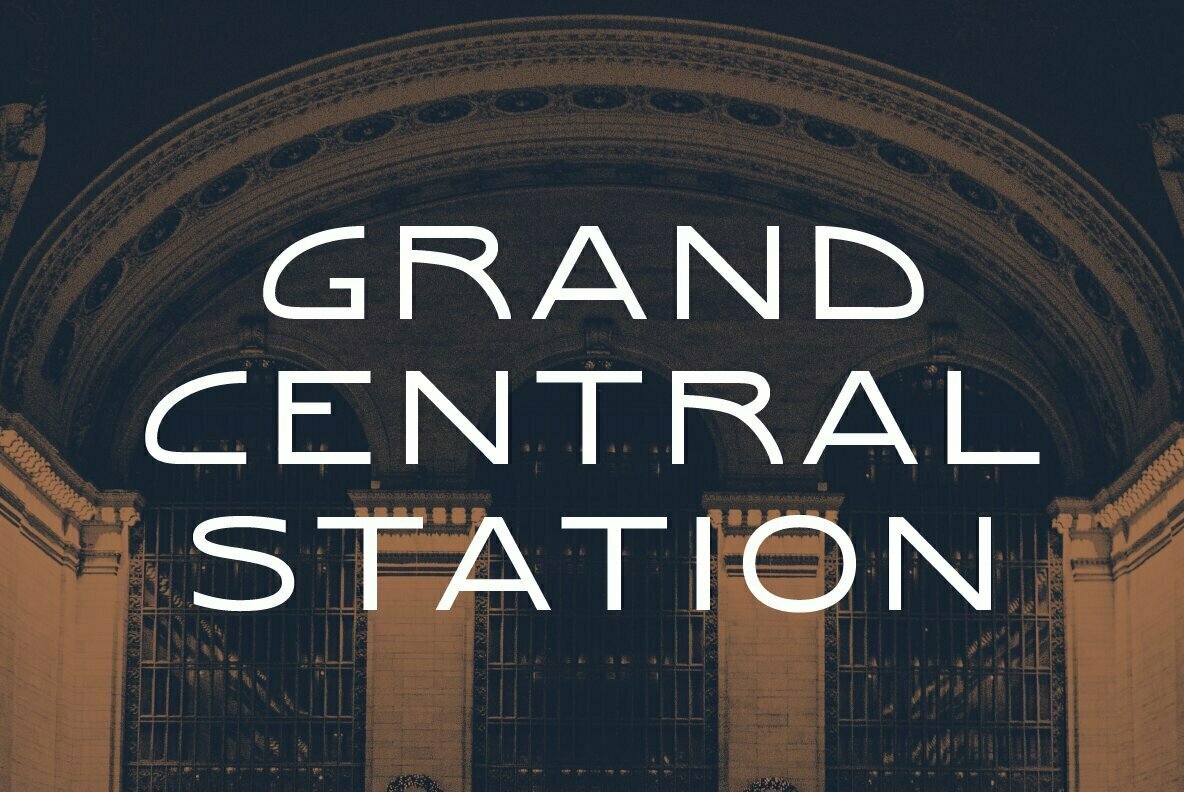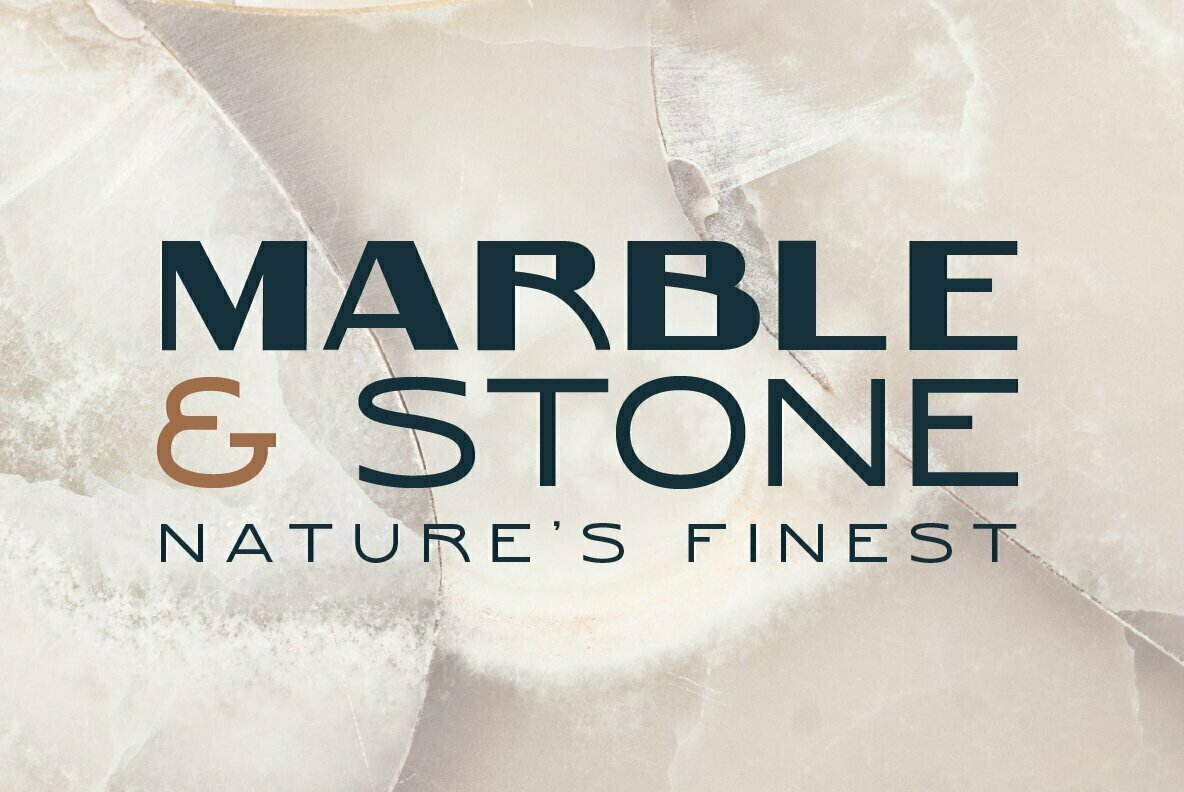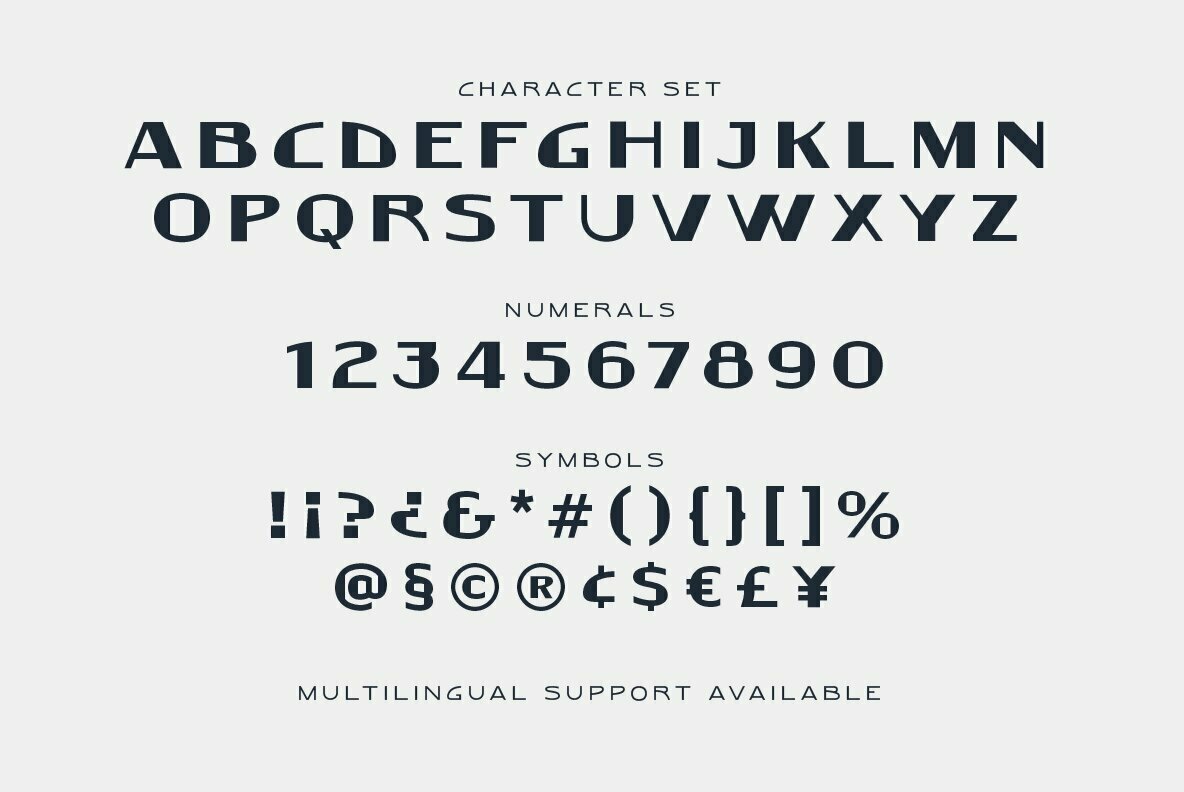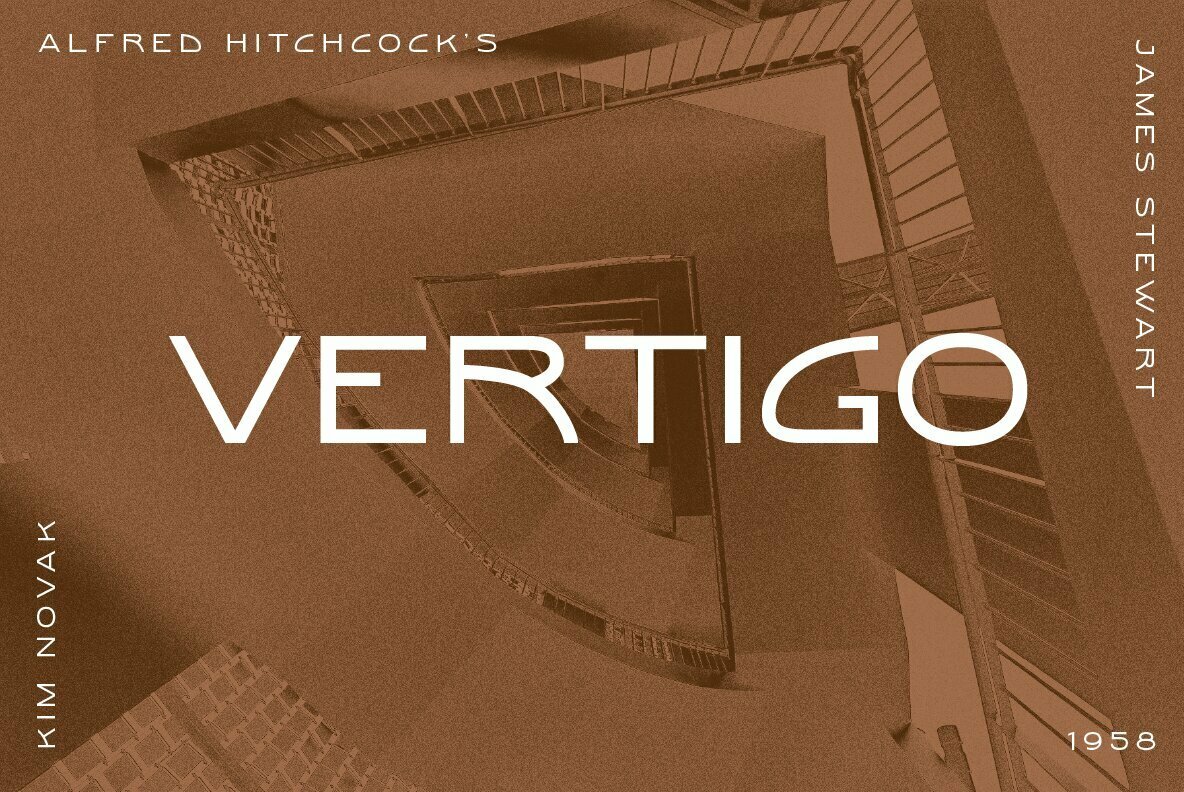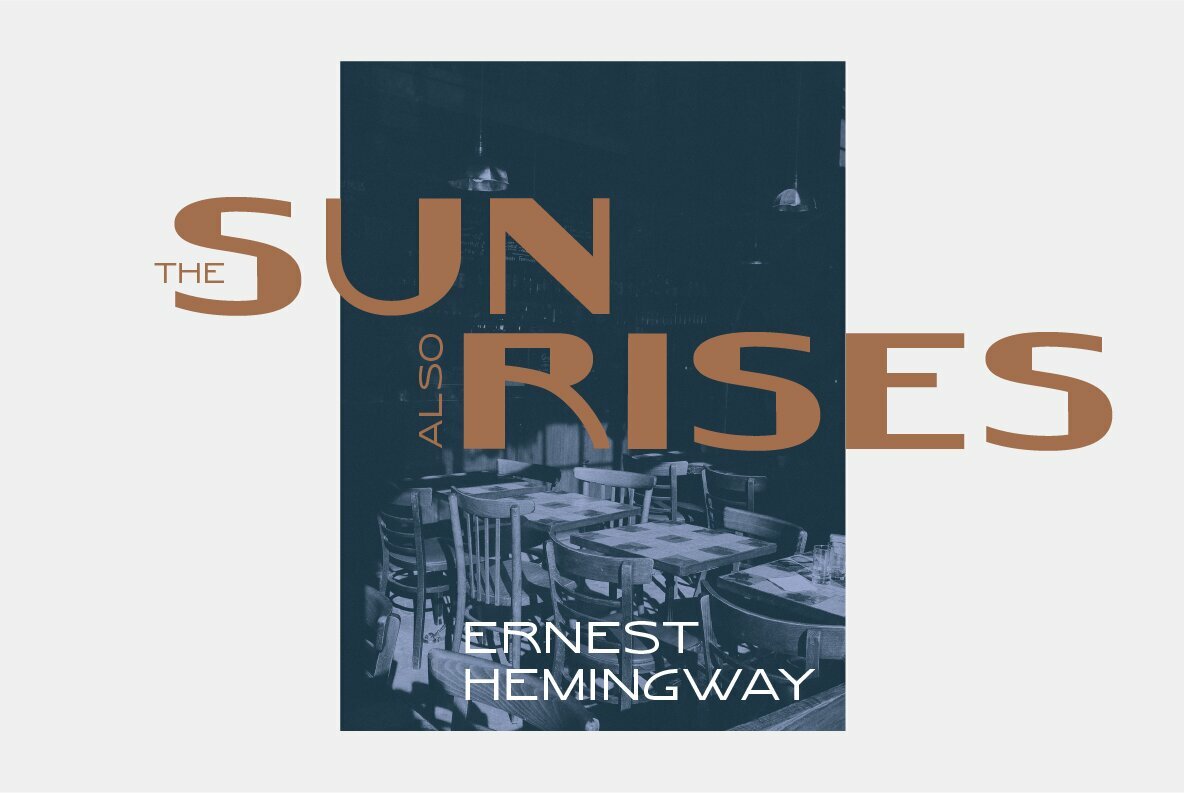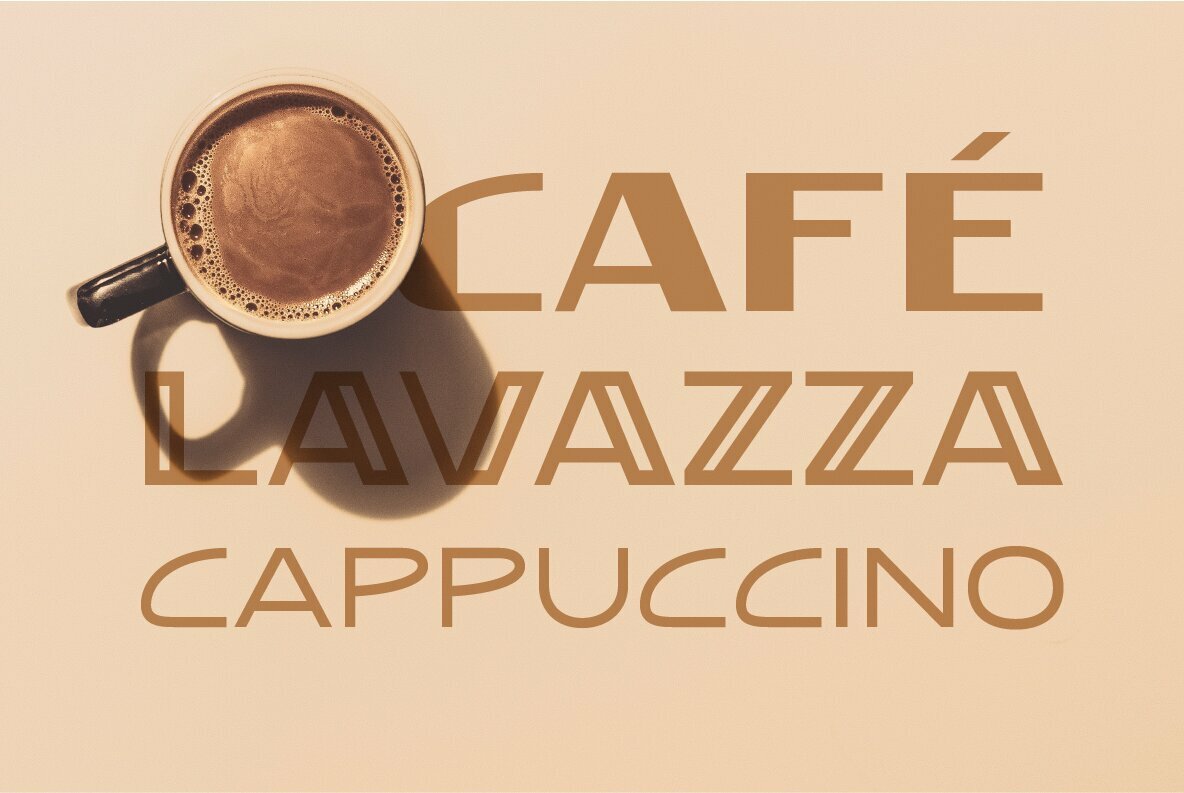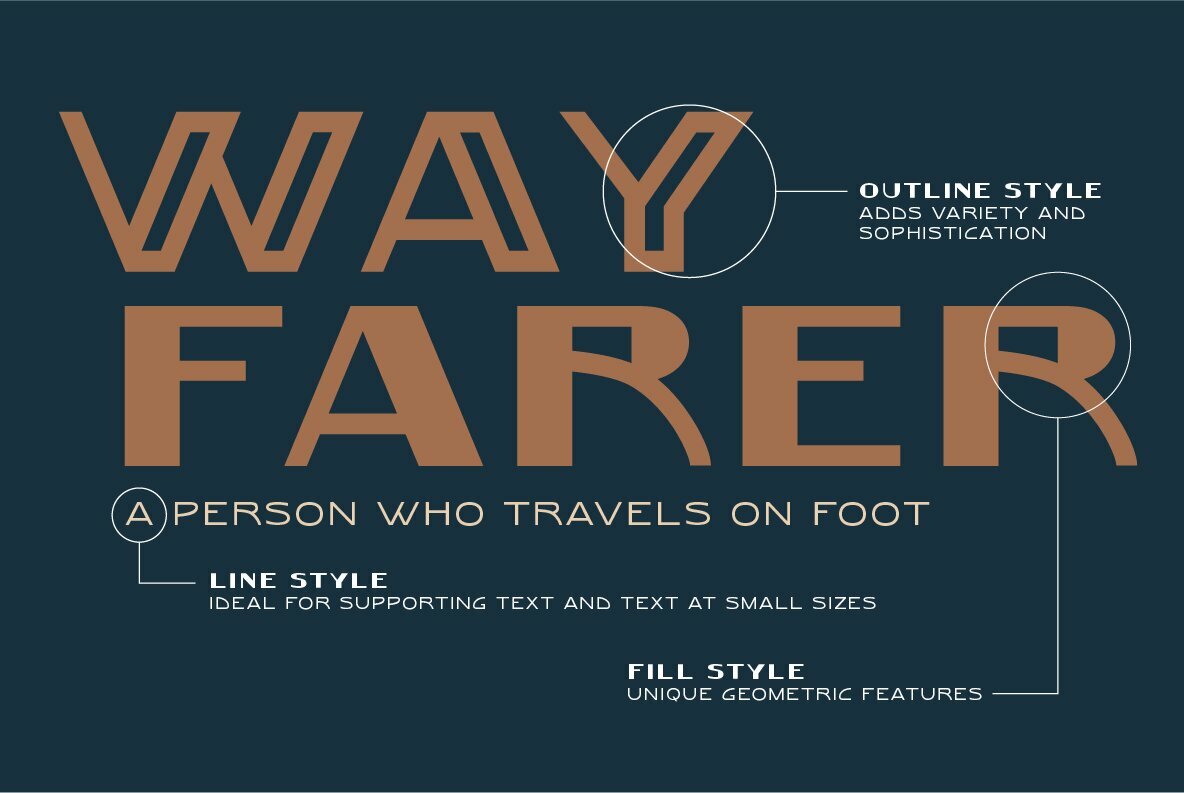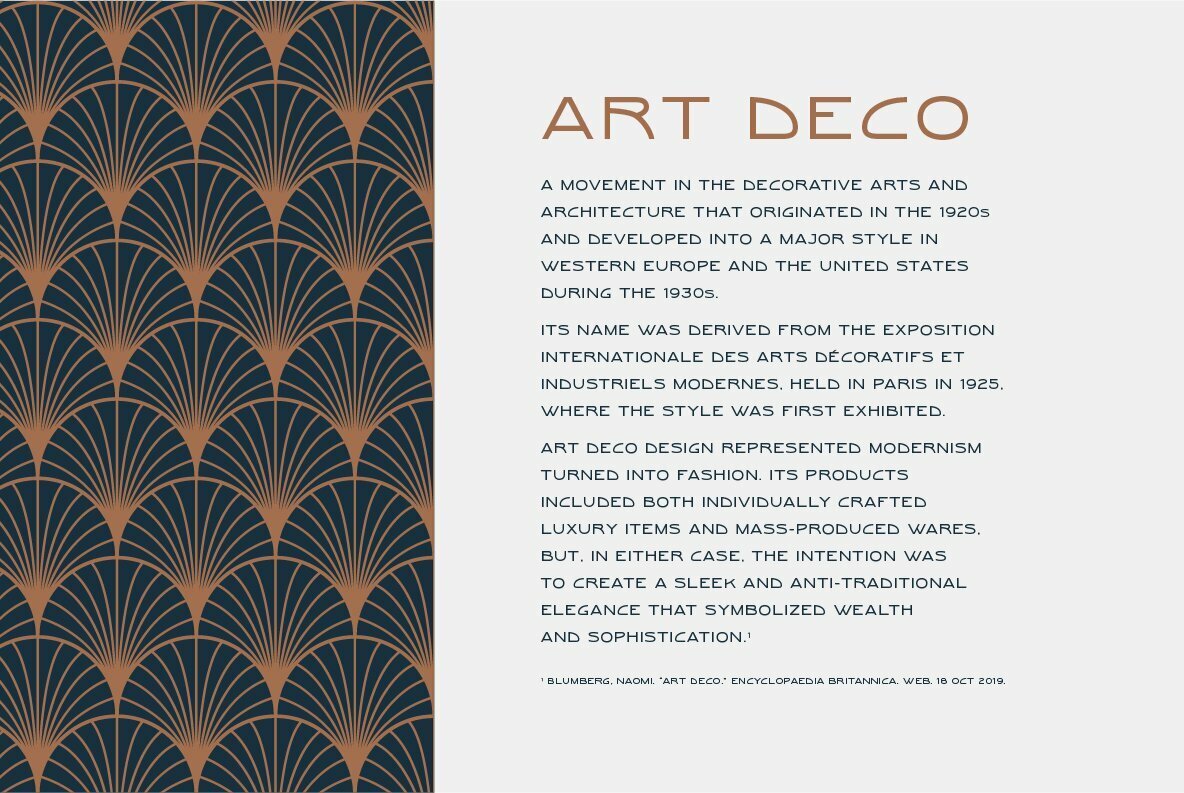
Balfour Font
BLT Balfour Fill
BLT Balfour Line
BLT Balfour Outline
Balfour is a modern take on an Art Deco typeface revival. Built from historic references in architecture during this time period, Balfour exudes class and elegance, yet still honors the style with unapologetic bold geometric forms.
Pay close attention to the letterforms B and R, and how their extreme x-heights play off of the elongated strokes of C, D and G. Unique features throughout the character set make it less predictable and more unique than any Art Deco typeface before it. The geometry of this typeface play from one letter to the next.
Fill and Outline styles work well in headlines, logos and large type. Line style is effective at all sizes and can be used in combination with other styles to achieve visual hierarchy. Multilingual support is included.